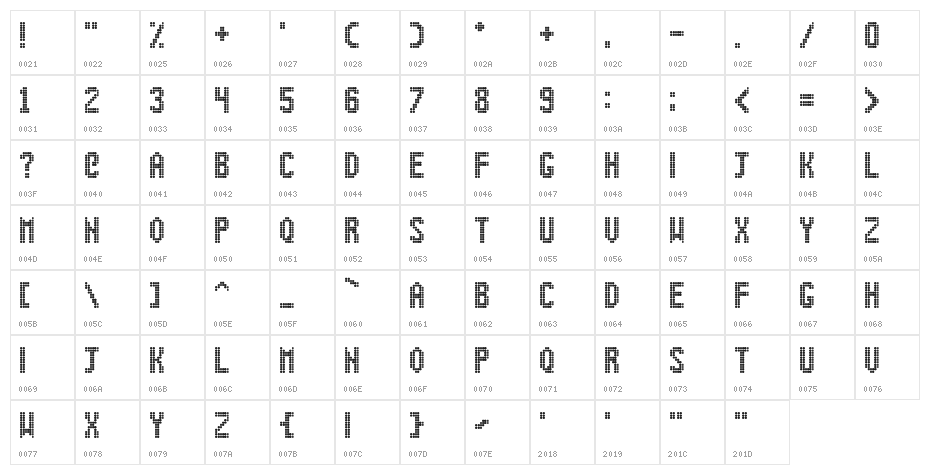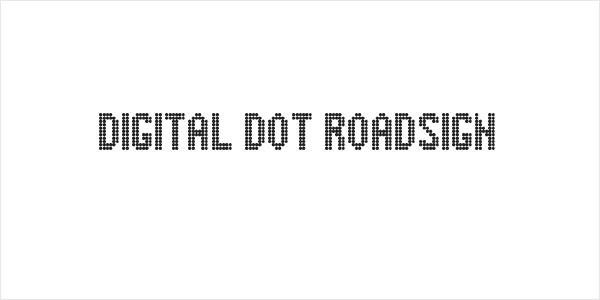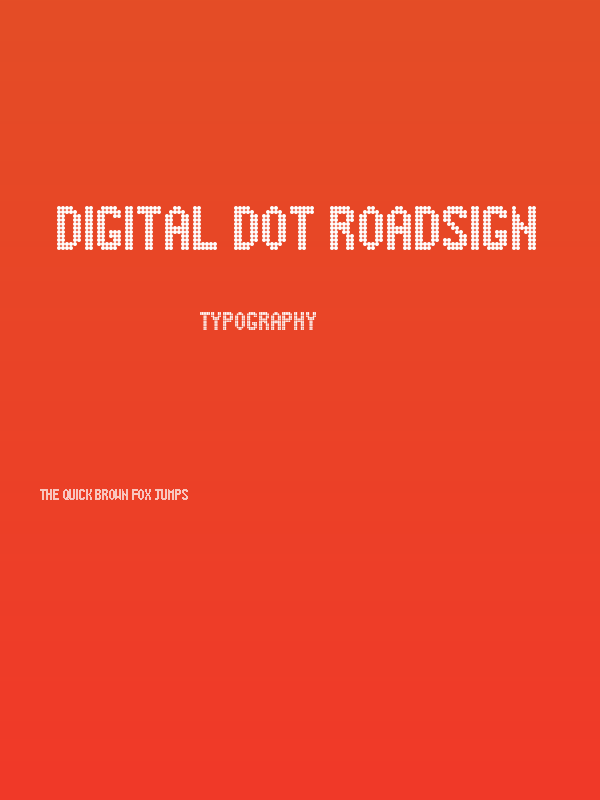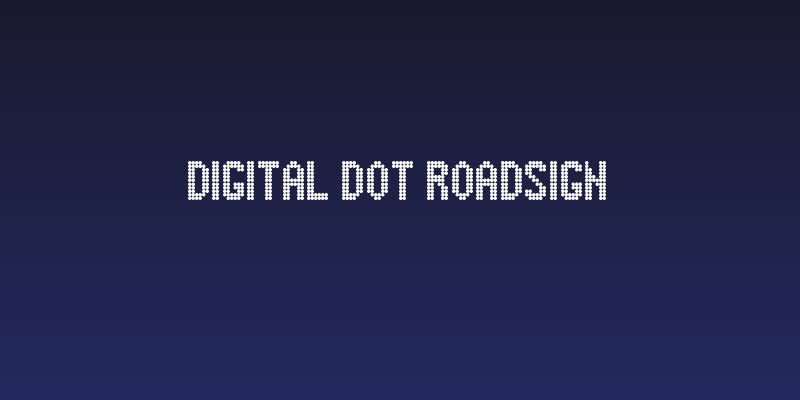
Digital Dot Roadsign Font
Digital Dot Roadsign Description
This font is characterized by its unique dot-matrix style, reminiscent of digital road signs and electronic displays. Each character is composed of a grid of dots, creating a pixelated effect that is both modern and retro. The uppercase and lowercase letters, as well as numbers and special characters, maintain a consistent dot pattern, ensuring readability while adding a distinctive digital flair. The uniformity in the dot arrangement gives it a structured and geometric appearance, making it ideal for conveying information in a clear and straightforward manner.
| Use Case | Headlines, Logos, Digital displays |
| Proposed Projects | Ideal for digital displays, electronic signage, retro-themed designs, and tech-related branding. |